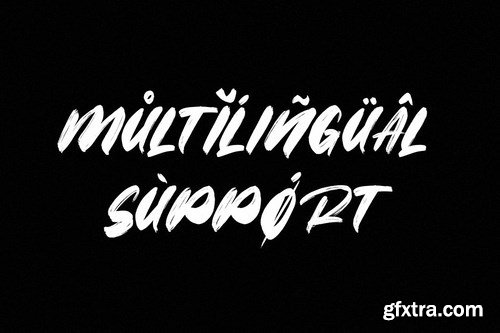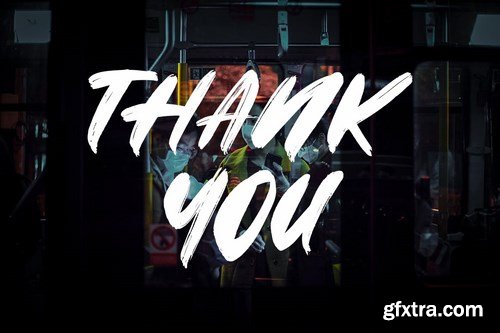
Strike Brush
Strike Brush is a new modern brush font, incredibly adaptable to all sorts of designs. It is suitable for any branding, product packaging, invitation, quote, t-shirt, label, poster, logo that you wish to create.